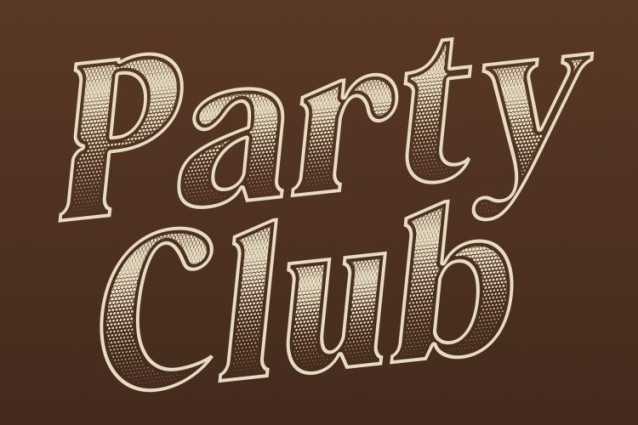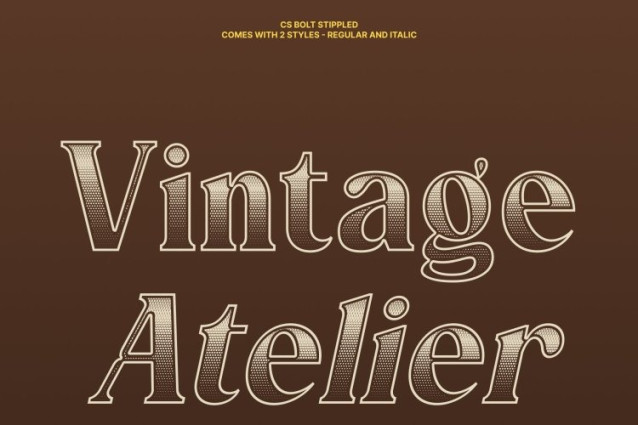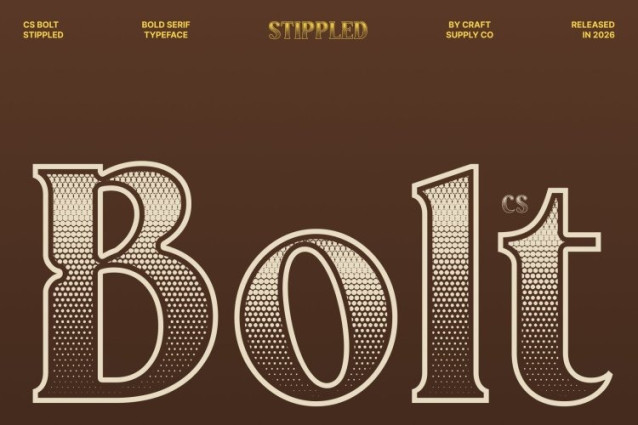
CS Bolt Stippled Font
CS Bolt Stippled Font – This is a bold serif font built to command attention through strong weight and confident structure. Its solid letterforms create an immediate visual impact, delivering a sense of authority and stability. Designed to stand out, this font brings a powerful presence to any composition while remaining visually balanced and controlled.
Strong Forms with Playful Softness
What makes this font distinctive is its unique balance between strength and softness. While the bold strokes communicate confidence and dominance, subtle curves and rounded details introduce a playful and approachable character. This thoughtful combination prevents the font from feeling rigid, allowing it to feel strong, expressive, and friendly at the same time.
Distinctive Stippled Texture
The stippled effect enriches the font with a dense dotted texture inspired by traditional stippling and ink-dot illustration techniques. This textured detail adds visual depth and handcrafted character, giving the bold letterforms a unique vintage-inspired appearance while maintaining their modern energy.
Perfect for Headlines and Impactful Branding
Ideal for headlines, posters, and impactful branding, this font excels in designs that need to grab attention instantly. Whether used for bold brand identities, eye-catching posters, or statement typography, it delivers a confident, modern, and powerful look with a unique balance of strength, personality, and artistic texture.